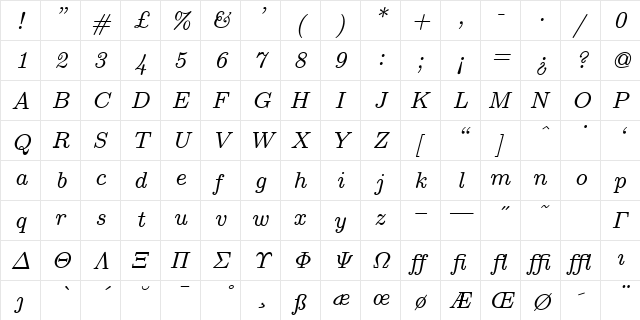
cmti8 Regular
cmti8 offers clean, dependable letterforms without strong stylistic allegiance, making it a practical choice for designers who need flexibility.